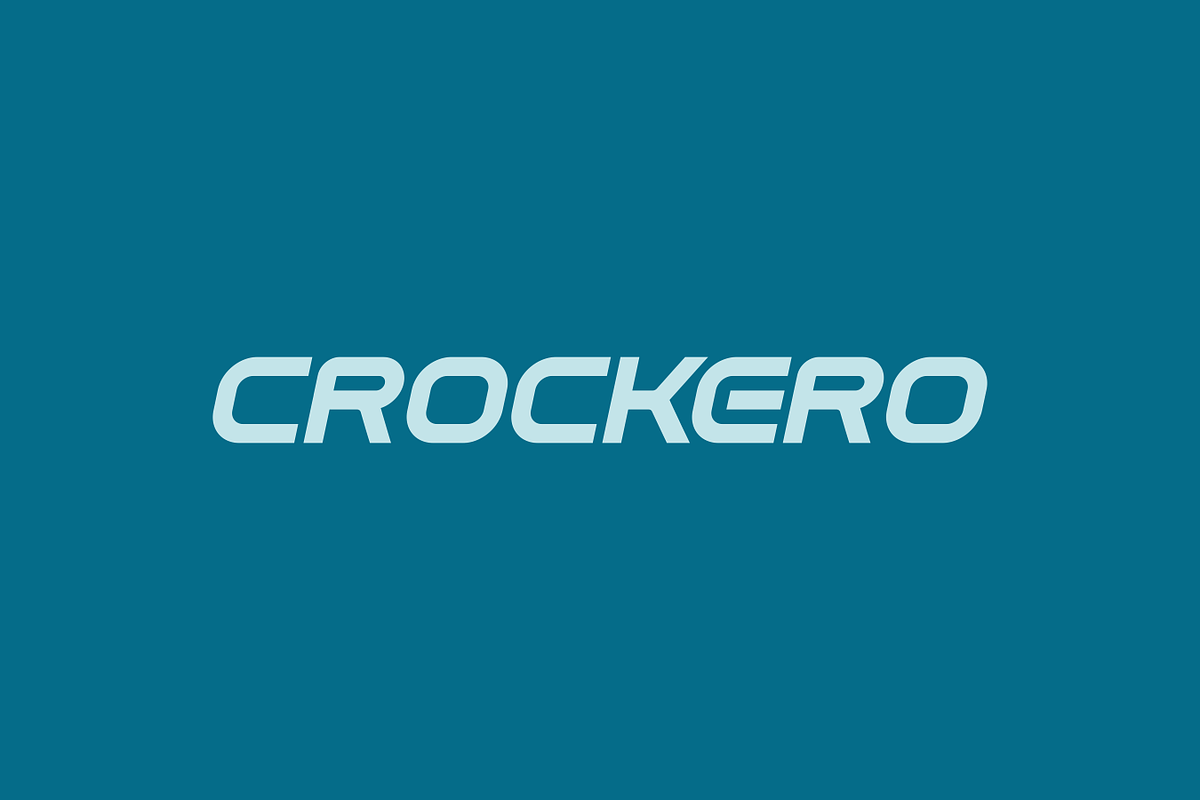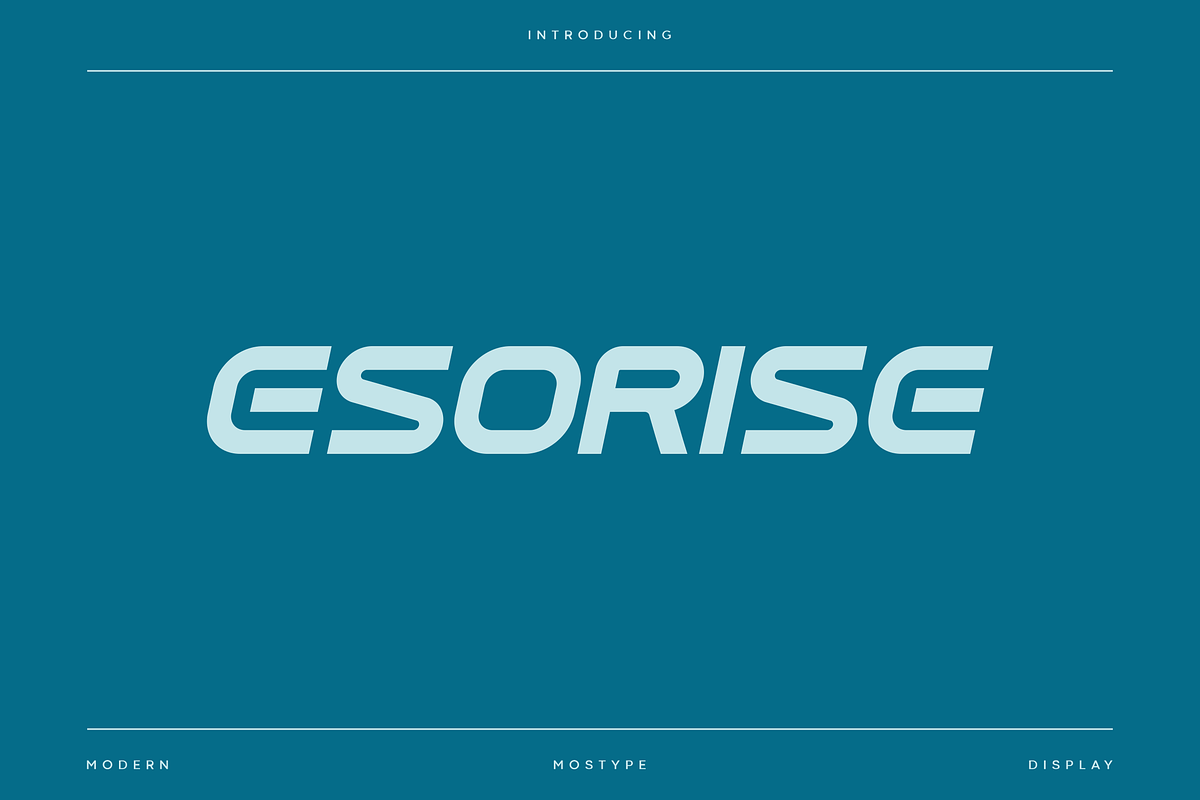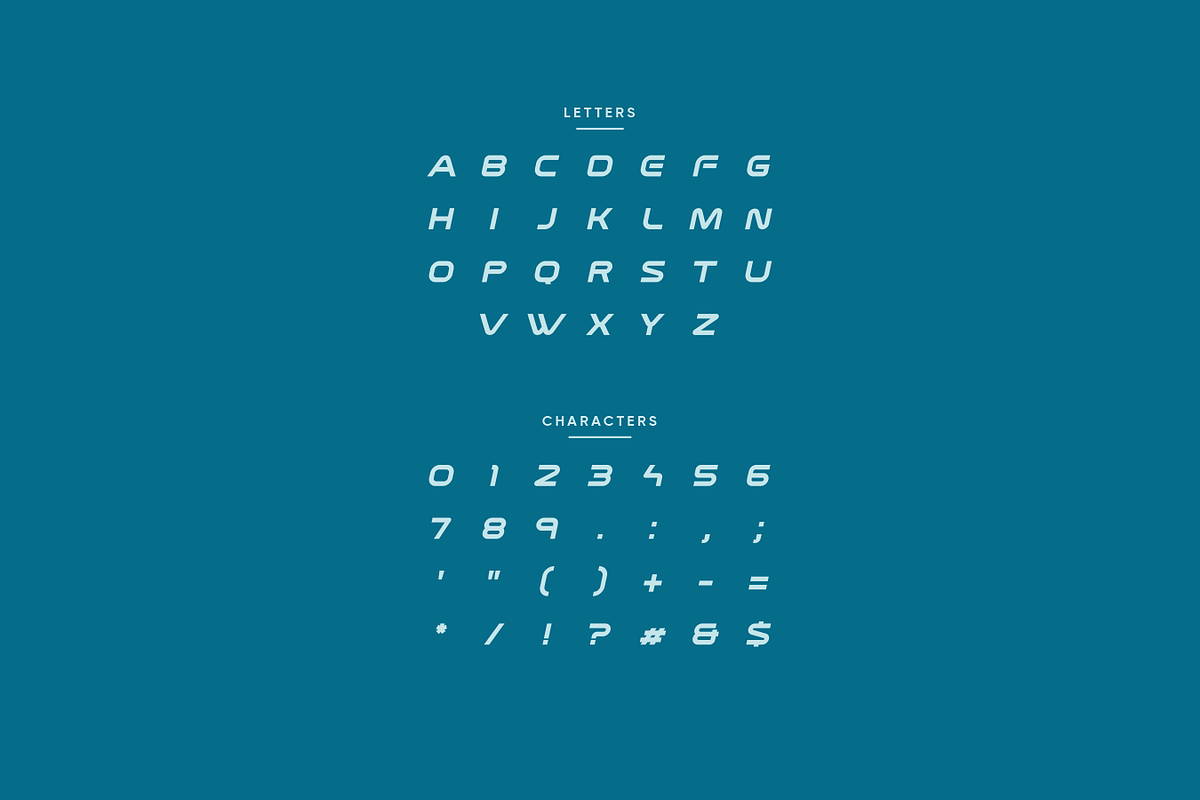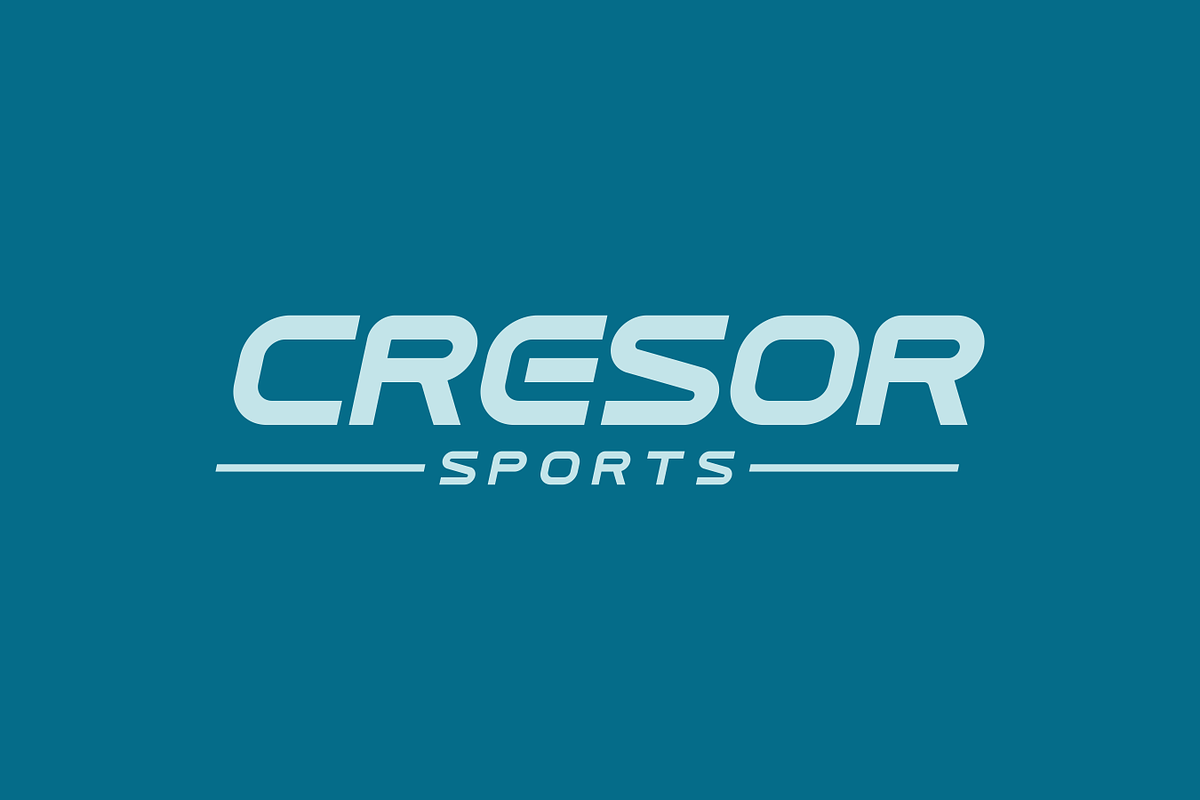
Esorise - Modern Sport Typeface
Esorise is a modern futuristic font with unique uppercase, come with all-caps that will make your design looks futuristic and sporty. You can use this font for any purpose, especially to make hi-tech and sport theme, this font is also suitable for science-fiction movie poster and more. With an elegant and clean appearance that will make it look good when used as a logo design, branding, magazine, headline and various designs that require the feel of the future.